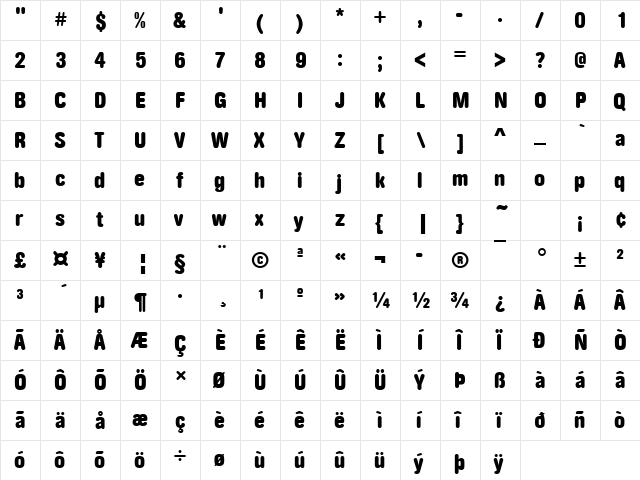
URWAccidaliaBucRouDBolCon Regular Font Preview
URWAccidaliaBucRouDBolCon Regular
Design Context for URWAccidaliaBucRouDBolCon Typeface
URWAccidaliaBucRouDBolCon offers clean, dependable letterforms without strong stylistic allegiance, making it a practical choice for designers who need flexibility.
Pro Tip: Use URWAccidaliaBucRouDBolCon in both headline and body roles to test its range before committing to a single application.